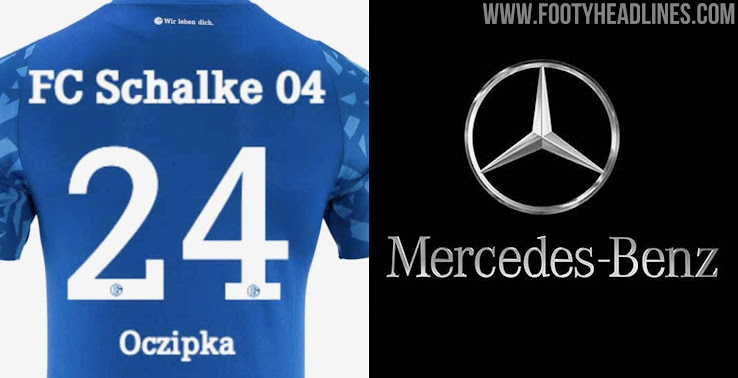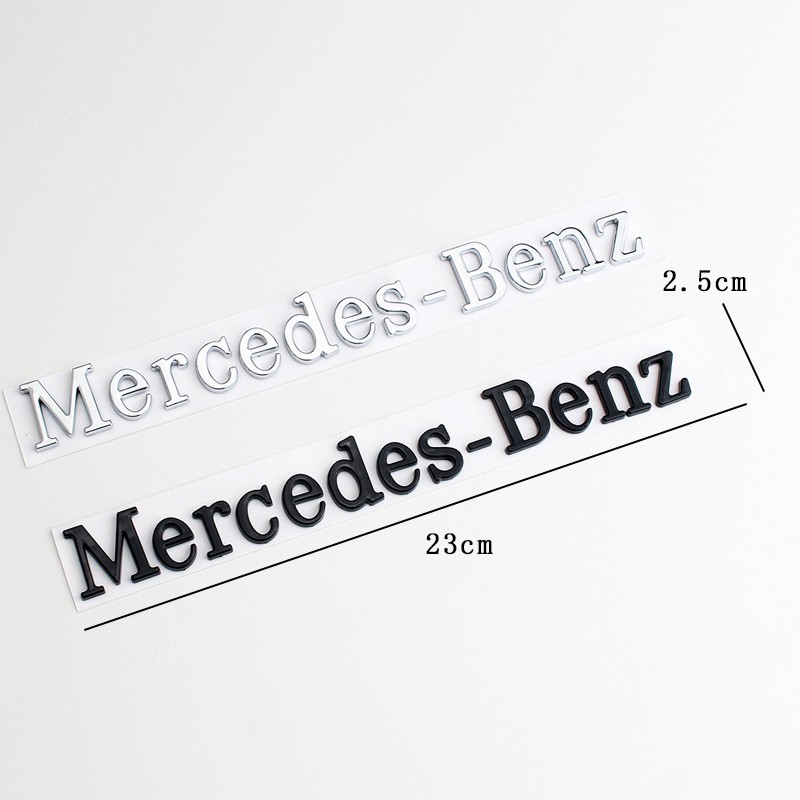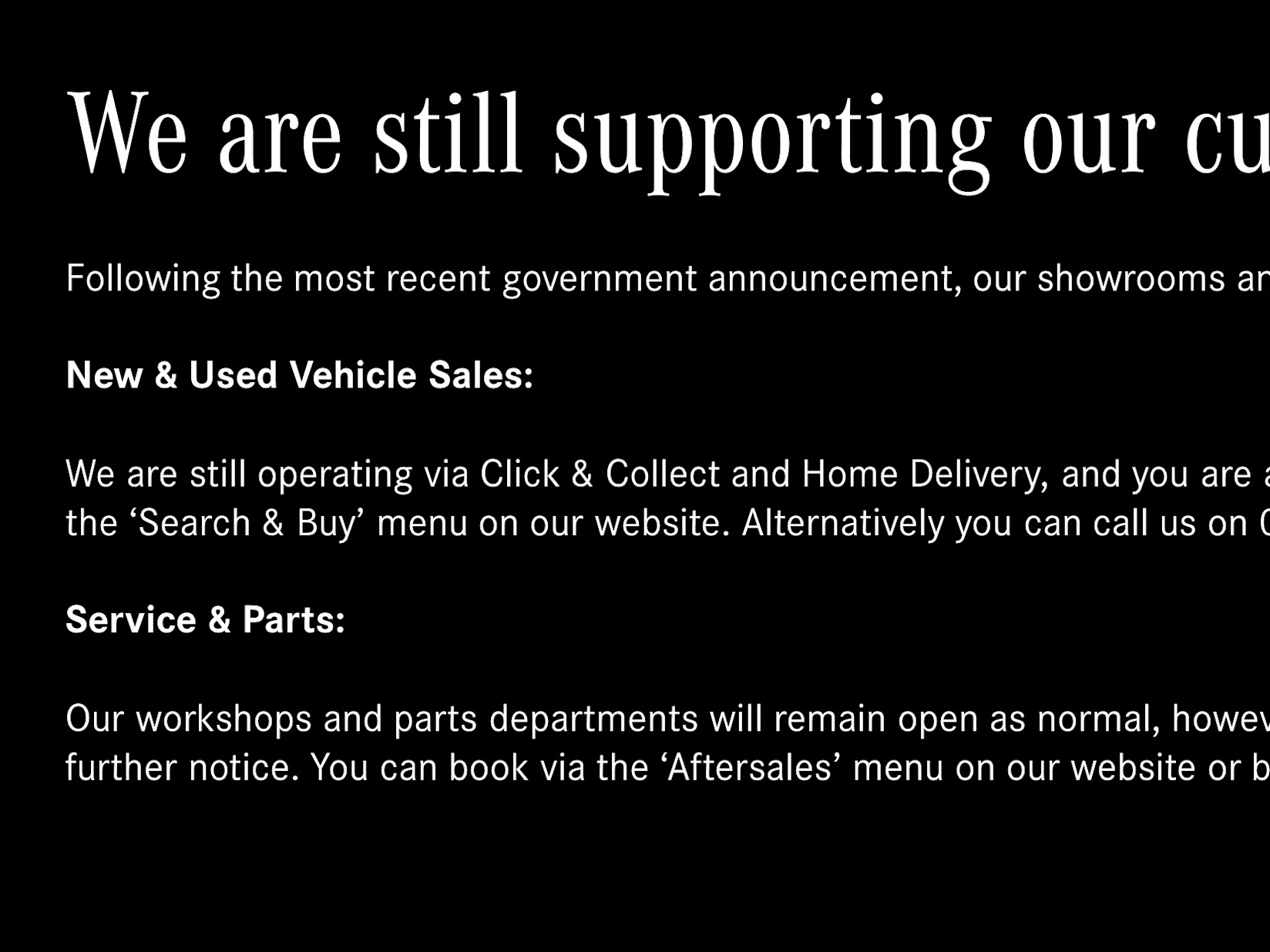
Mercedes Benz Font
Mercedes benz font. Hello Guys, We are introducing a stylish font family Mercedes Font Mercedes Benz is a German automobile company founded on 28 June 1926 in Stuttgart, Germany Karl Benz and Gottlieb Daimler are the founders of this automobile company In 18, Mercedes become the biggest selling vehicle brand in the world And it sold over 231 million cars. Whats the font they always use for "Mercedes Benz" though Because that is a seriff font, and Corporate A Light isnt 1981 300D Anthracite Grey 358K (Daily Driver). Euro Font Number Plate for Mercedes Benz Car We only offer quality number plates and can be used on the road, all of our number plates are fully reflective on both front and rear plates and meet all of the guidelines We use the best quality sourced reflective sheets to increase visibility and glare brightly at night time, plates with 10 mm corner radius for safety purposes, pressed with hydraulic machine overlay of black foil transferred by heat on the embossed text for clear readability.
As for font featured in the logo, it’s a simple custom typeface Very similar to Times New Roman, the Mercedes Benz logo features a serif font It is meant to inspire trust and seriousness, as well as cleverness and simplicity The font means to show that while the company focuses on simplicity, quality is even more important. Tools you need to best represent the MercedesBenz Club of America to our members All major brands utilize a style guide to steer the application of the brand’s assets – the logo, colors, fonts and typography This allows us to create a more consistent, cohesive and quality look and feel that is MercedesBenz Club of America Style Guide. Mercedes Benz Font and Mercedes Benz Logo Mercedes Benz font here refers to the font used in the logo of MercedesBenz, which is luxury automobile brand under the German manufacturer Daimler AG.
1909 — 1916 The Benz logo from 1909 was elegant and ornate Its traditional circular badge had a thick double outline where the stylized wreath was drawn The wordmark in an eddy custom sansserif was written in black on a white background of the inner circle. MercedesBenz (German mɛɐ̯ˈtseːdəsˌbɛnts, dɛs) is both a German automotive marque and, from late 19 onwards, a subsidiary – as MercedesBenz AG – of Daimler AG MercedesBenz is known for producing luxury vehicles and commercial vehicles The headquarters is in Stuttgart, BadenWürttembergThe name first appeared in 1926 as DaimlerBenz. Contributed by 博行 三浦.